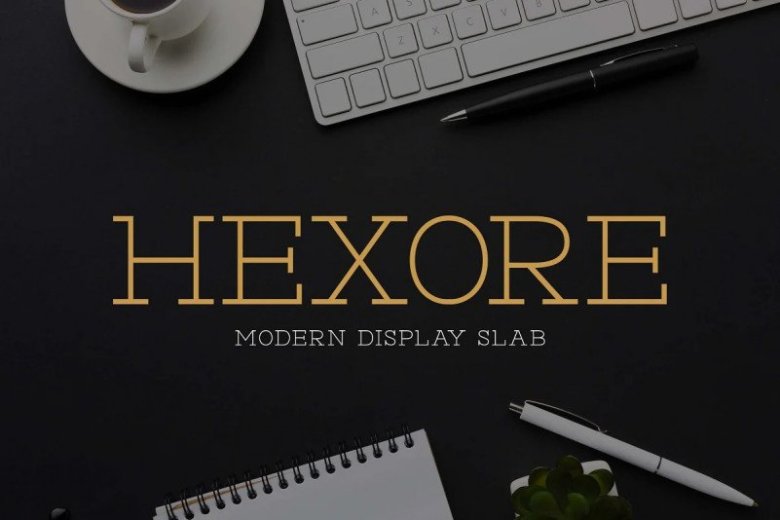
Hexore Font
Hexore Slab Serif Font is a modern display slab serif typeface designed by Almarkha Type is a stylish slab serif font that is both classic and minimal. inspired by the famous minimalist logo, perfect for the purposes of designing templates, brochures, videos, advertising branding, logos and more.